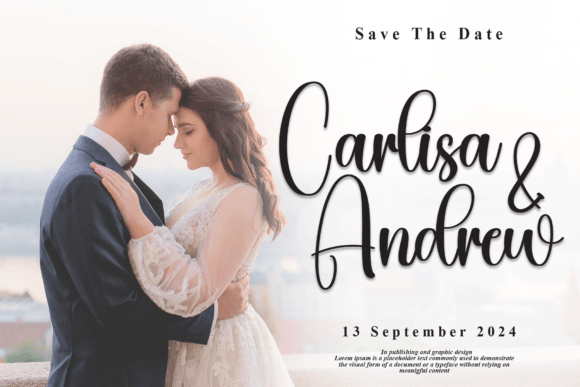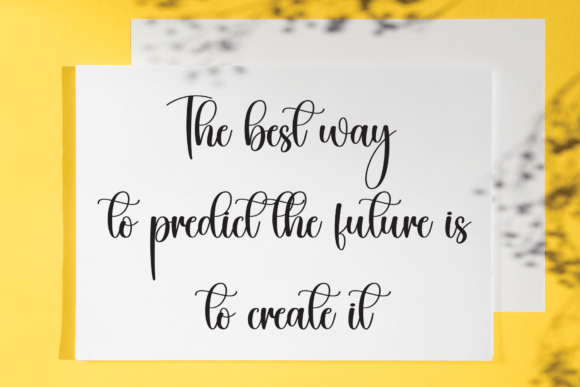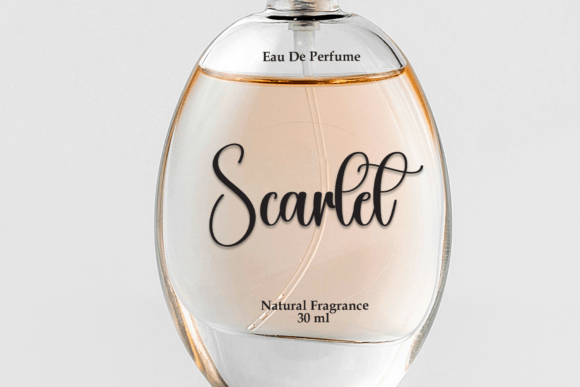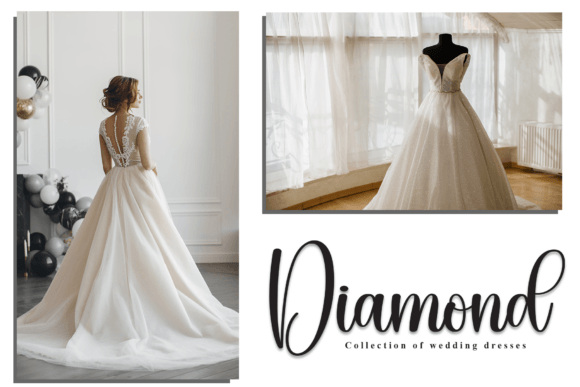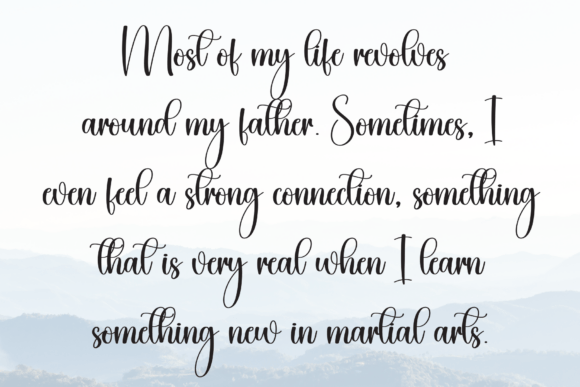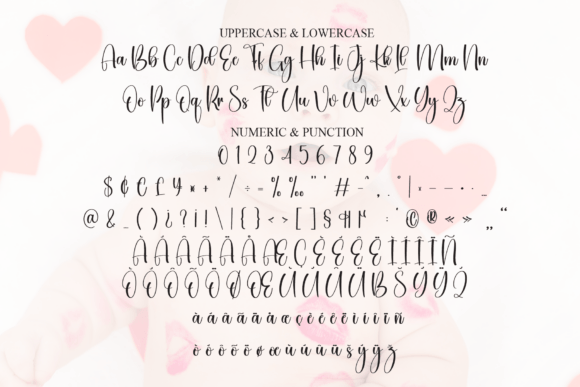
Babylove Font: The Ultimate Choice for Adding a Personal Touch to Your Designs
Are you looking for a font that can add a warm and friendly feel to your designs? Look no further than the Babylove font. This cute, handwritten font is perfect for invitations, greeting cards, and any creative project that needs a personal touch. Its soft and rounded letters make it a joy to use, and it’s sure to bring a playful vibe to your designs.
What is Babylove Font?
Babylove is a unique and charming font that is designed to evoke a sense of warmth and friendliness. Its handwritten style gives it a personal and approachable feel, making it perfect for designers and crafters who want to add a touch of personality to their work. Whether you’re creating invitations, greeting cards, or social media graphics, Babylove font is sure to make your designs stand out.
Key Features of Babylove Font
- Cute and Handwritten Style: Babylove font has a unique, handwritten style that gives it a personal and approachable feel.
- Soft and Rounded Letters: The font’s soft and rounded letters make it perfect for designs that need a warm and friendly touch.
- Perfect for Invitations and Greeting Cards: Babylove font is ideal for creating invitations, greeting cards, and other paper crafts.
- Great for Creative Projects: This font is perfect for any creative project that needs a personal touch, from social media graphics to blog posts.
Why Choose Babylove Font?
There are many reasons why designers and crafters choose Babylove font for their projects. Here are a few:
- Unique and Eye-Catching: Babylove font is a unique and eye-catching choice that will make your designs stand out from the crowd.
- Easy to Read: The font’s soft and rounded letters make it easy to read, even at small sizes.
- Versatile: Babylove font can be used for a wide range of projects, from formal invitations to casual social media graphics.
- Fun and Playful: This font adds a fun and playful vibe to your designs, making it perfect for projects that need a bit of personality.
How to Use Babylove Font in Your Designs
Using Babylove font in your designs is easy. Here are a few tips to get you started:
- Pair it with Other Fonts: Babylove font pairs well with other fonts, such as sans-serif fonts or script fonts.
- Use it for Headings and Titles: This font is perfect for headings and titles, where you want to make a bold statement.
- Add it to Your Social Media Graphics: Babylove font is a great choice for social media graphics, such as Instagram posts and Facebook updates.
- Use it for Invitations and Greeting Cards: This font is ideal for creating invitations, greeting cards, and other paper crafts.
Tips and Tricks for Getting the Most out of Babylove Font
Here are a few tips and tricks for getting the most out of Babylove font:
- Experiment with Different Sizes: Try using Babylove font in different sizes to see how it looks.
- Play with Color: This font looks great in a variety of colors, so don’t be afraid to experiment.
- Use it with Images: Babylove font pairs well with images, so try using it with photos or illustrations.
Babylove font is a unique and charming font that is perfect for designers and crafters who want to add a personal touch to their work. Its soft and rounded letters make it a joy to use, and it’s sure to bring a playful vibe to your designs. Whether you’re creating invitations, greeting cards, or social media graphics, Babylove font is a great choice. So why not give it a try and see how it can add a warm and friendly feel to your designs?